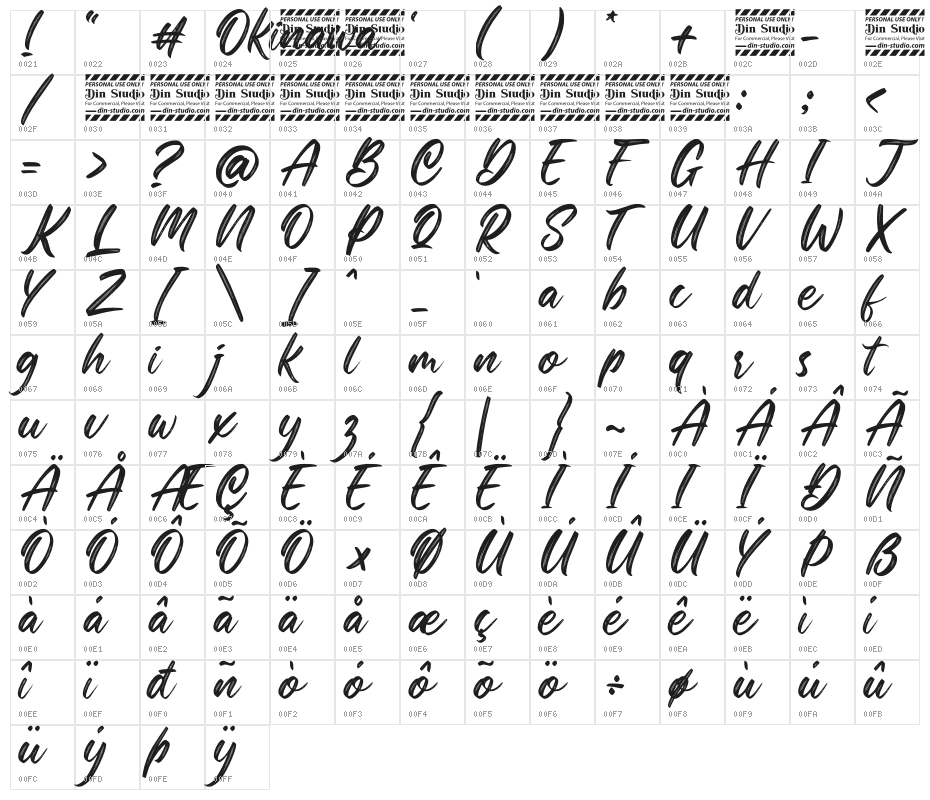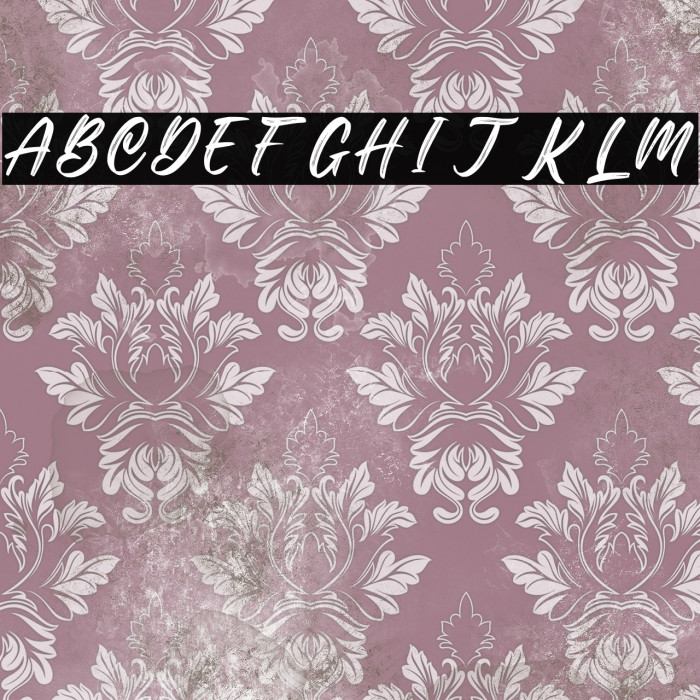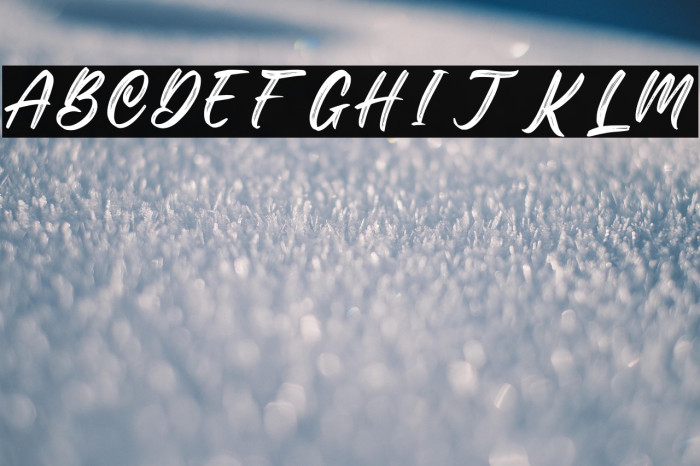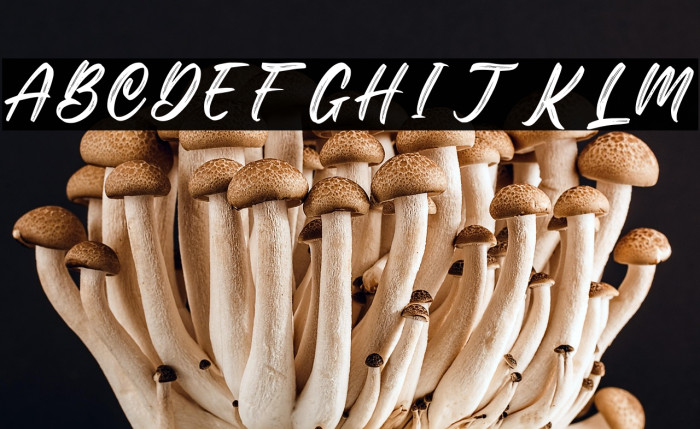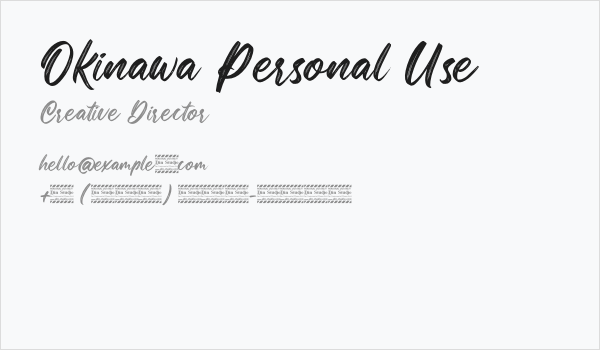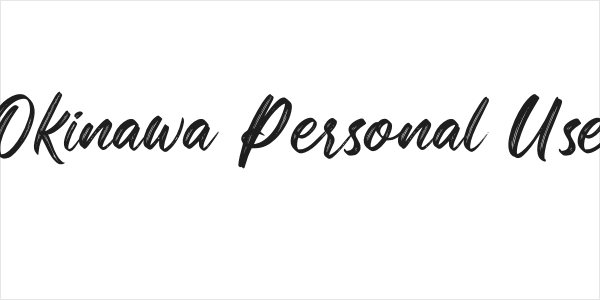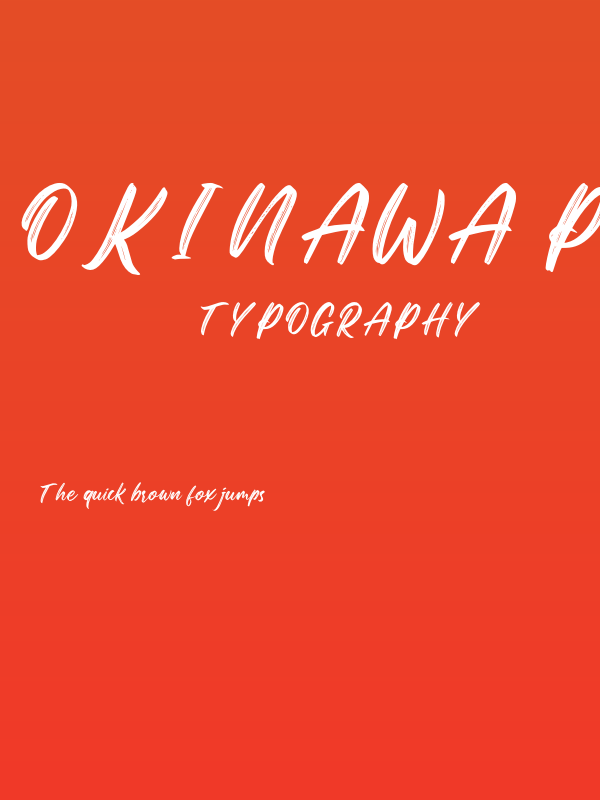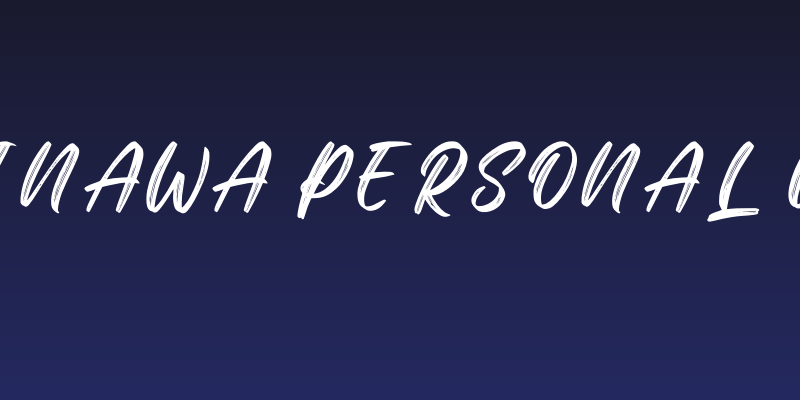
Okinawa Personal Use Font
Okinawa Personal Use Description
This font features a dynamic and expressive script style, characterized by its fluid and flowing letterforms. The strokes are bold and confident, with a slight slant that adds a sense of movement and energy. The uppercase letters are elegantly crafted, maintaining a consistent height, while the lowercase letters exhibit a playful and artistic flair. The font includes a full set of numerals and a variety of special characters, making it versatile for different design needs. The overall appearance is both modern and artistic, suitable for projects that require a personal and creative touch.